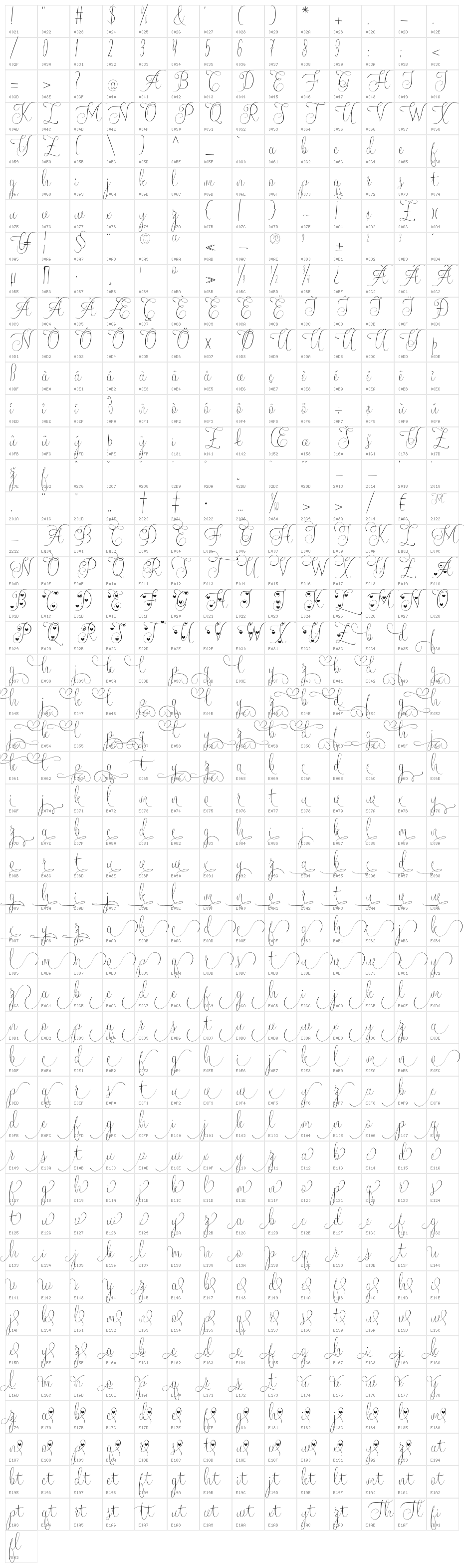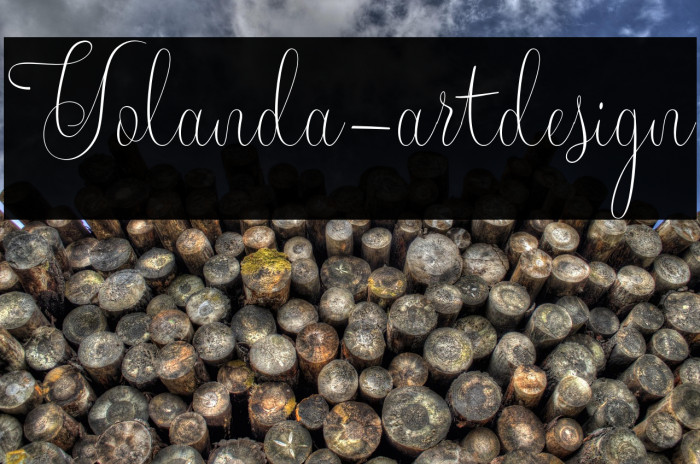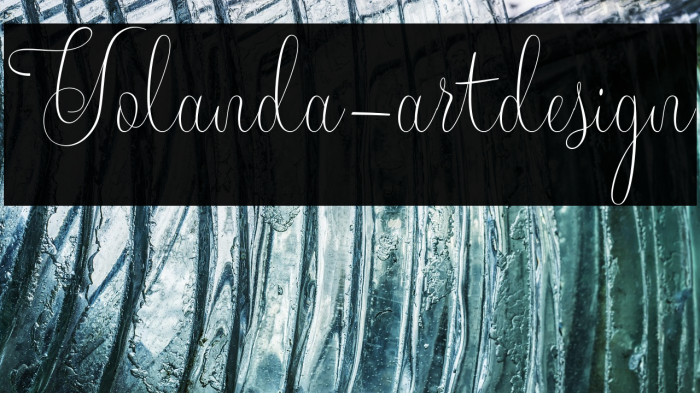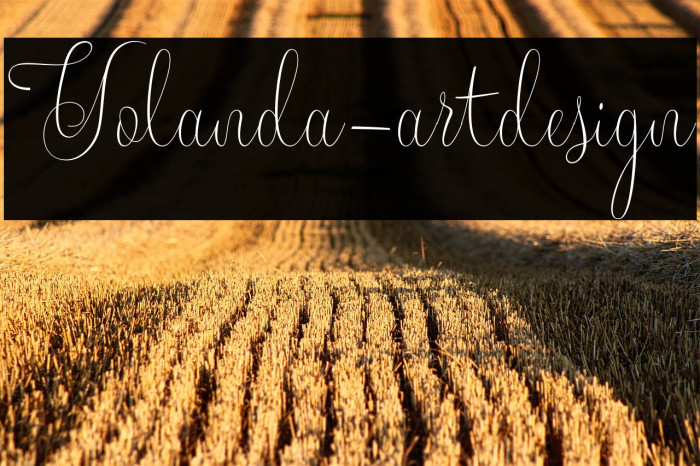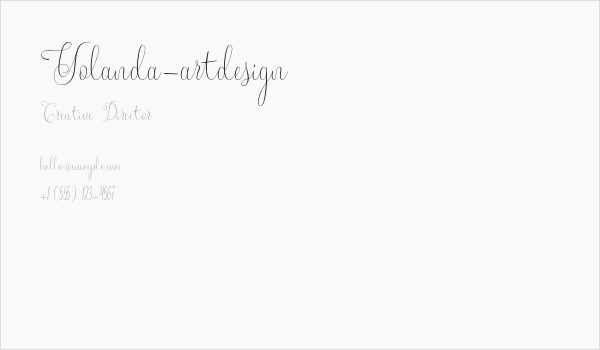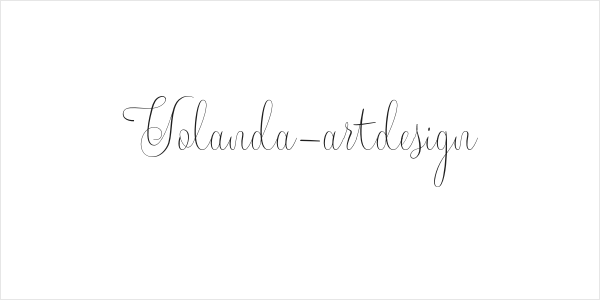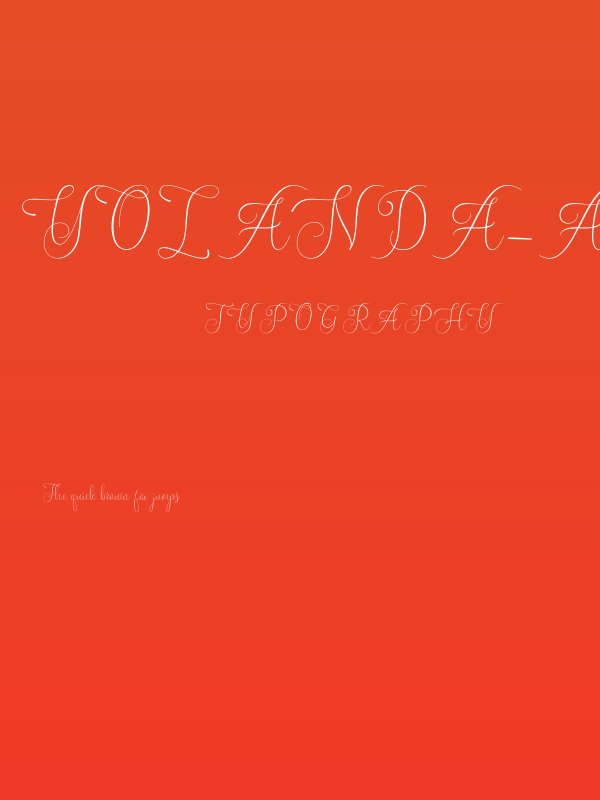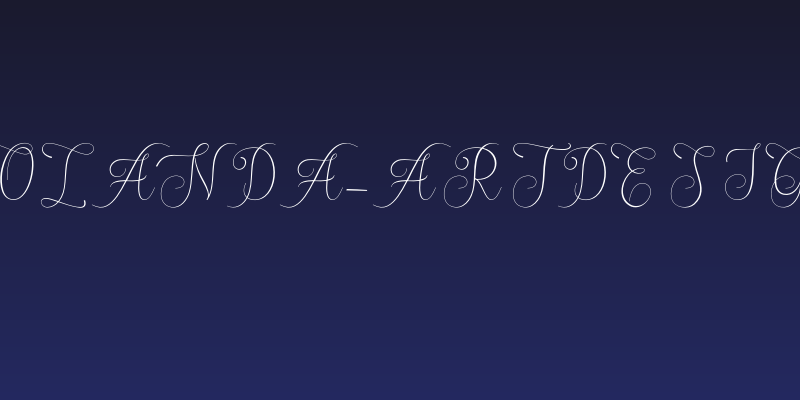
Yolanda-artdesign Font
Yolanda-artdesign Description
This font features an elegant and flowing script style, characterized by its delicate and intricate curves. The uppercase letters are adorned with graceful loops and swirls, giving them a sophisticated and ornamental appearance. The lowercase letters maintain a consistent fluidity, with elongated ascenders and descenders that enhance the font's decorative nature. The numerals are slender and maintain the same elegant style, while the special characters are designed to complement the overall aesthetic. This font exudes a sense of refinement and artistic flair, making it suitable for projects that require a touch of elegance and creativity.